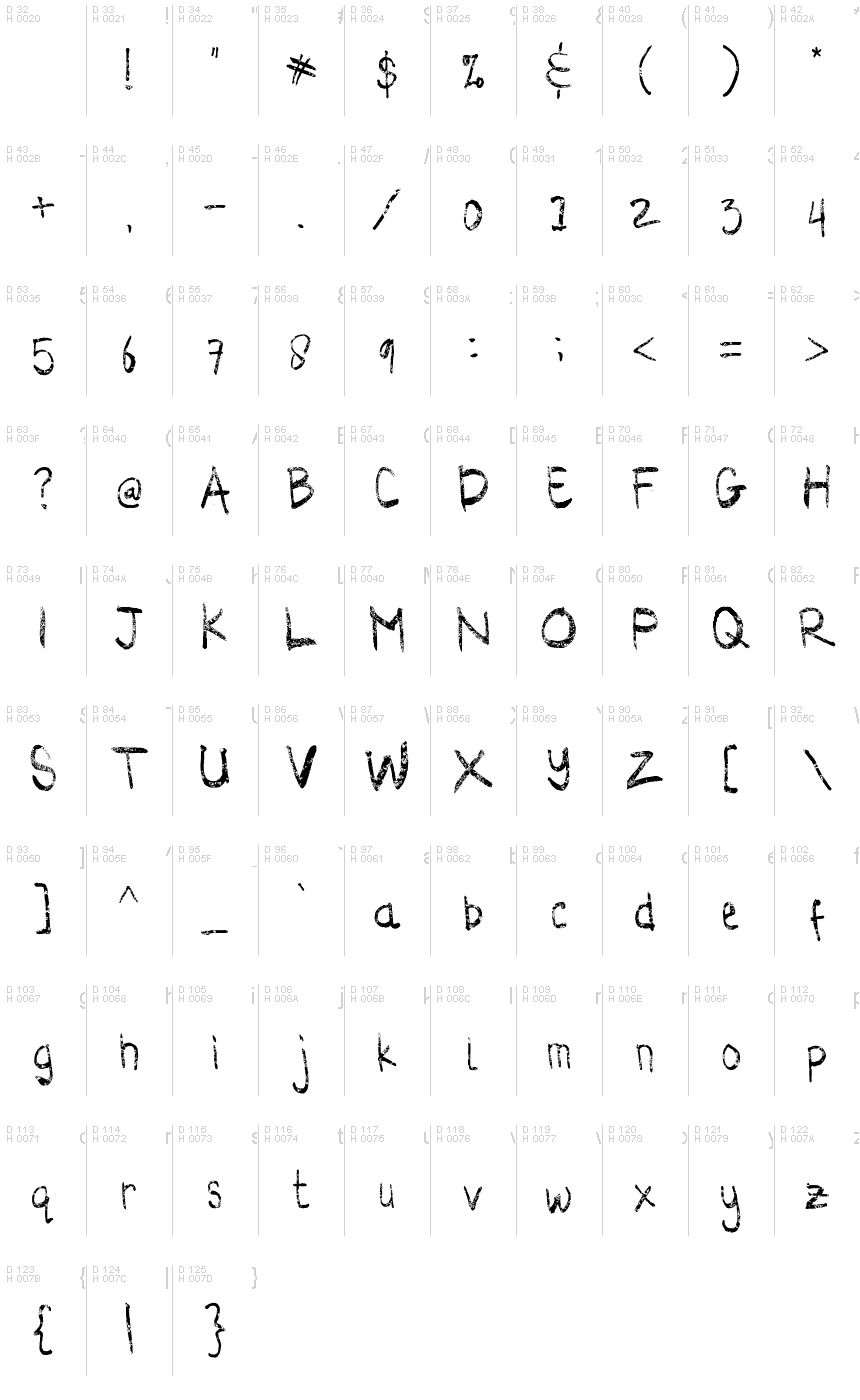
CORONA COVID19
CORONA COVID19 is a unique and expressive eroded handwritten font that captures the essence of chaos and disorder. Designed by Alifinart Studio, this typeface is perfect for projects that require a raw and edgy vibe. The semi-bold font width adds an extra punch to your designs, making it ideal for posters, flyers, and other creative print materials. This versatile font style can also be used for branding projects that aim to convey a rebellious spirit or an alternative lifestyle. Whether you're working on a music album cover or a streetwear brand logo, CORONA COVID19 has got you covered with its distinctive look and feel.